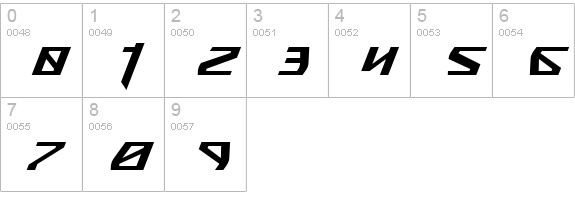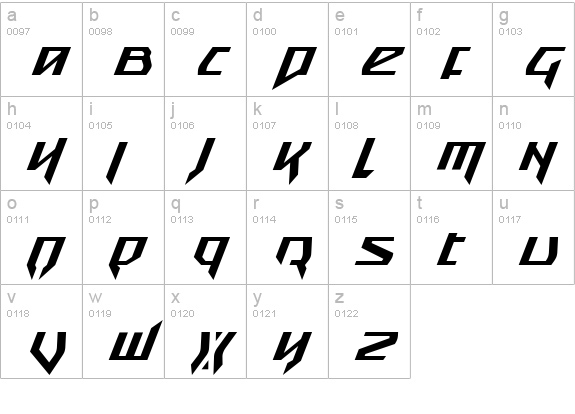
Snubfighter Condensed Italic is a distinctive, condensed-width, italic variant in the Snubfighter typeface family \xE2\x80\x94 well suited to design and typography projects.
Snubfighter Condensed Italic font is a sleek and modern typeface designed for those seeking a bold and dynamic look in their designs. With its sharp angles and distinctive italics, this font exudes a sense of sophistication and style. Perfect for adding a touch of elegance to logos, headlines, or any other design projects, Snubfighter Condensed Italic is sure to make a statement. The best part? This striking font is available for free download at FontsMarket.com, making it easily accessible to designers and creatives looking to elevate their work with a touch of flair. Whether you're working on a branding project, website design, or any other creative endeavor, Snubfighter Condensed Italic font is a versatile and eye-catching choice that will set your designs apart.